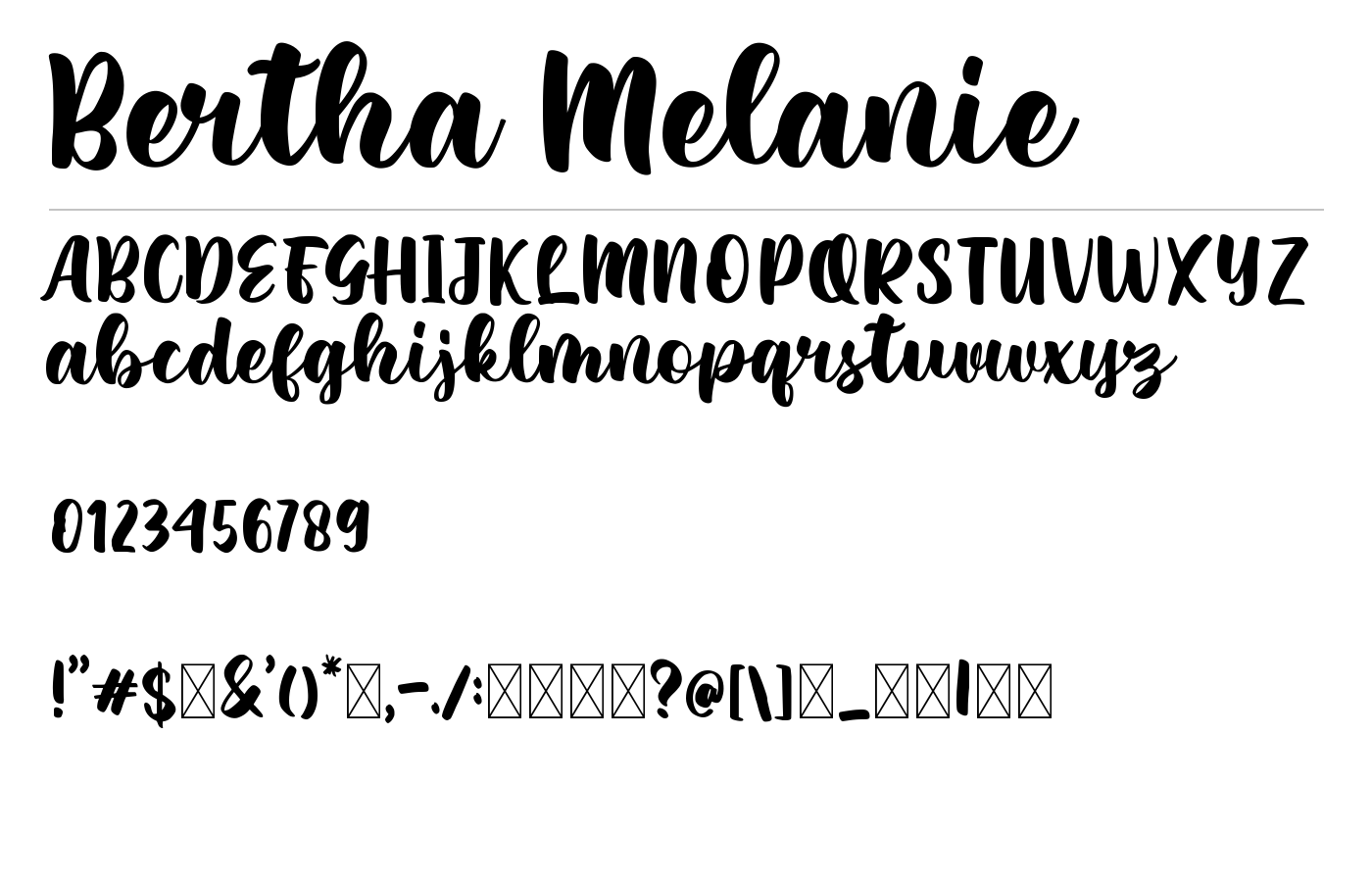
Bertha Melanie is a bold, brush script font with a lively and friendly personality, featuring smooth, rounded strokes and playful letterforms that convey warmth and creativity. Its high x-height and uniform weight make it highly legible while maintaining a casual, handwritten charm perfect for branding, invitations, and social media graphics. This font works best for projects seeking a personal, approachable touch with a stylish, modern flair.
Bertha Melanie Font
About Bertha Melanie Font
| Font family | Bertha Melanie Font |
| Designer | M Arif Dwi Prasetyo & Eko Nurcahyo |
| Trademark | Creakokun Studio™ |